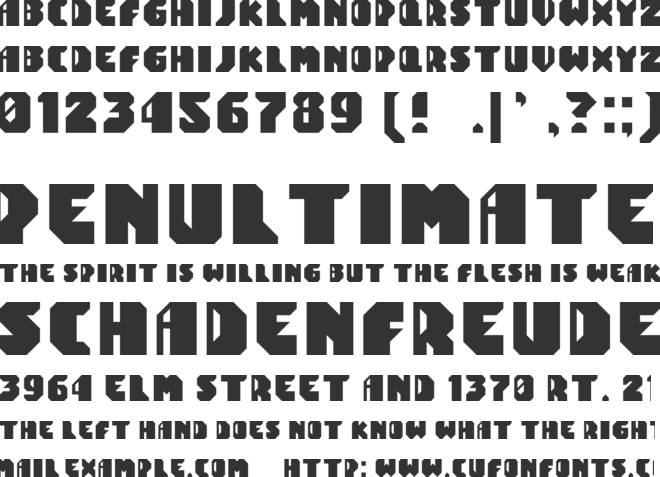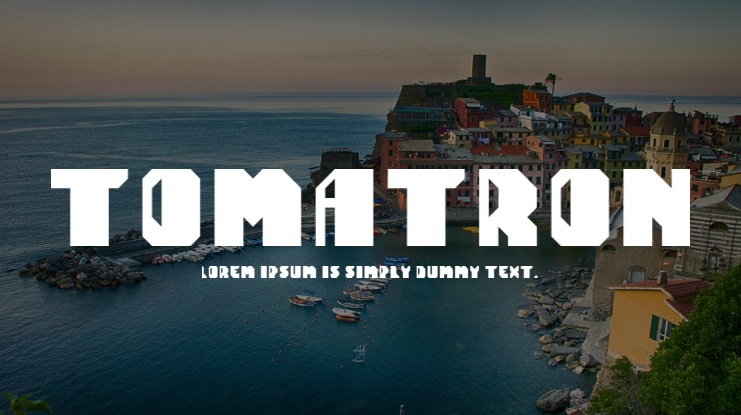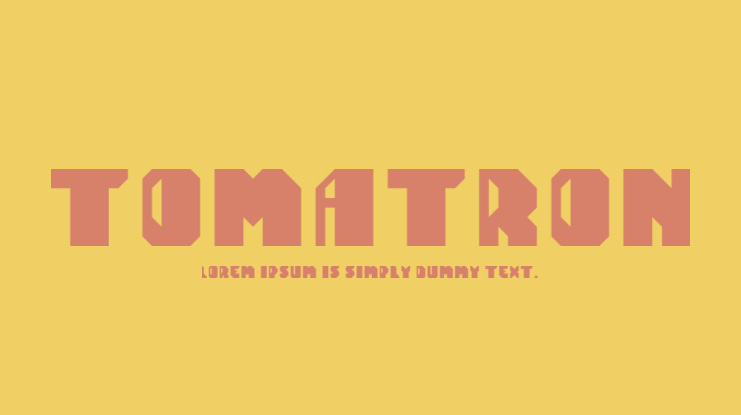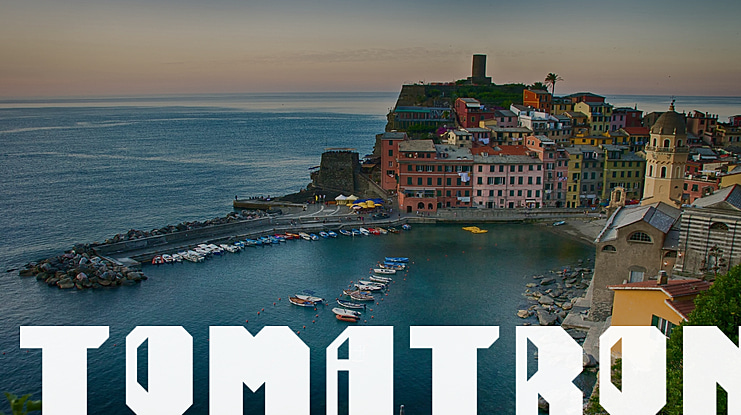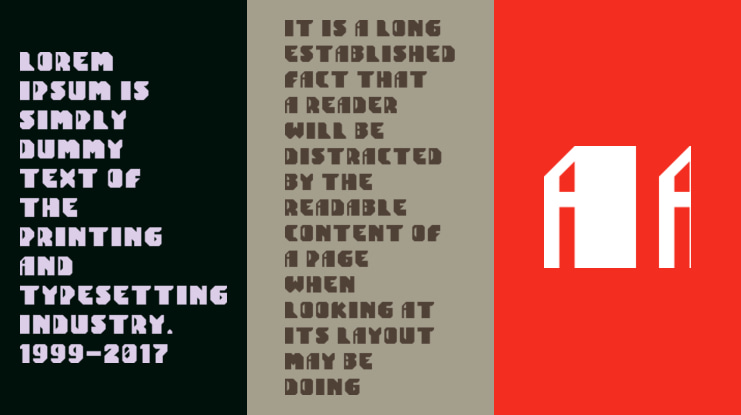
Tomatron Font
A bold font by the name of Tomatron, hailing from the outer rims of 80's retro game space, is invading your world. Surrender now before it's too late!